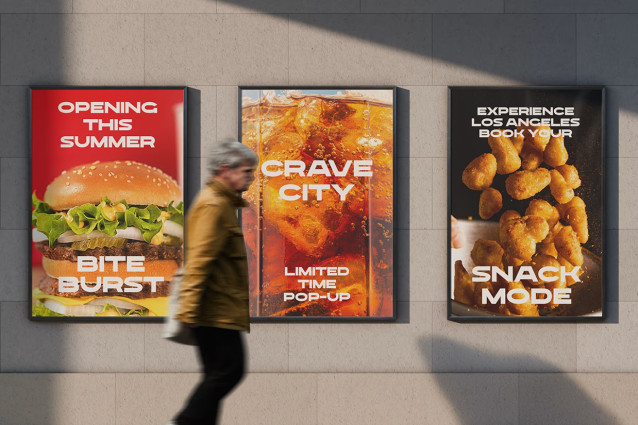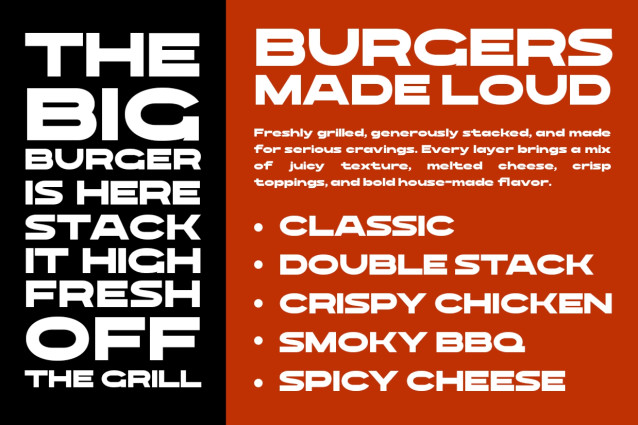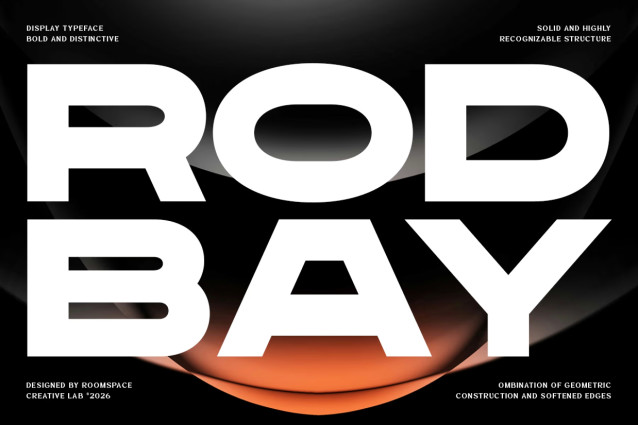
RODBAY Font
Rodbay is a bold extended display typeface built around geometric construction, wide proportions, and softened edges. Its distinctive letterforms create a strong visual presence while maintaining a clean, recognizable structure across sizes.
The typeface includes 2 styles: Regular and Oblique, giving you flexibility to create both stable compositions and more dynamic typographic layouts. Rodbay features uppercase and lowercase characters, numerals, punctuation, symbols, accented characters, and multilingual support for broader design applications.
Rodbay works well for headlines, posters, visual identities, packaging, menus, advertising, editorial layouts, signage, apparel graphics, digital interfaces, and other projects that require a strong typographic voice. Its extended proportions are especially well-suited to large-scale typography, stacked compositions, and wide-format layouts.